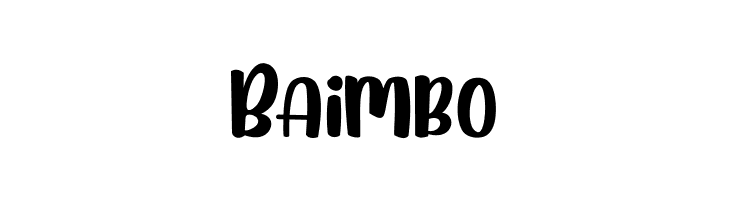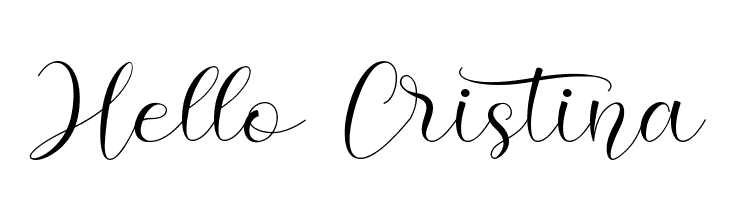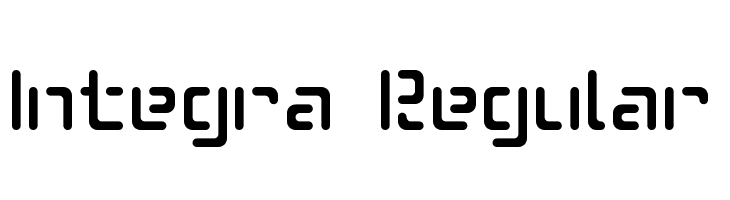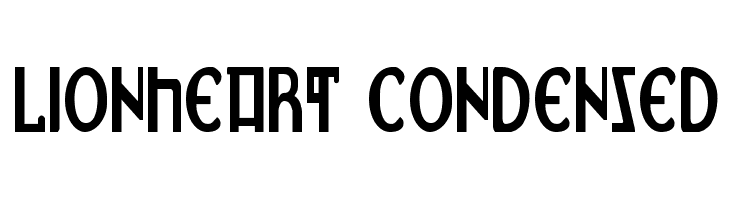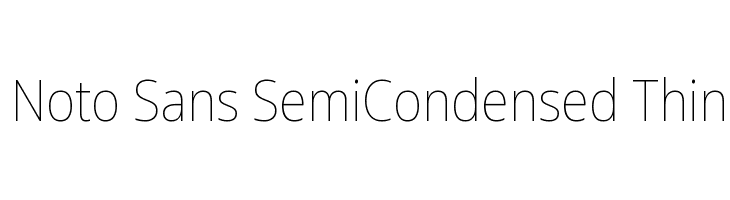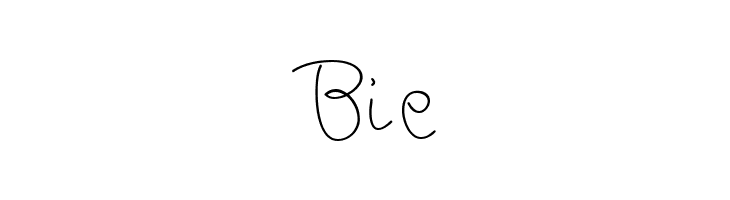
A graceful and elegant script font with flowing, cursive letterforms.
An elegant, cursive font with intricate loops and sweeping curves.
A modern, geometric font with thin, elongated strokes and a minimalistic design.
A bold, structured font with medium contrast and elegant serif elements.
A bold, gothic-inspired font with intricate details and sharp angles.
A dynamic and expressive script font with fluid, cursive letterforms.
A playful, bold font with thick, rounded characters perfect for creative designs.